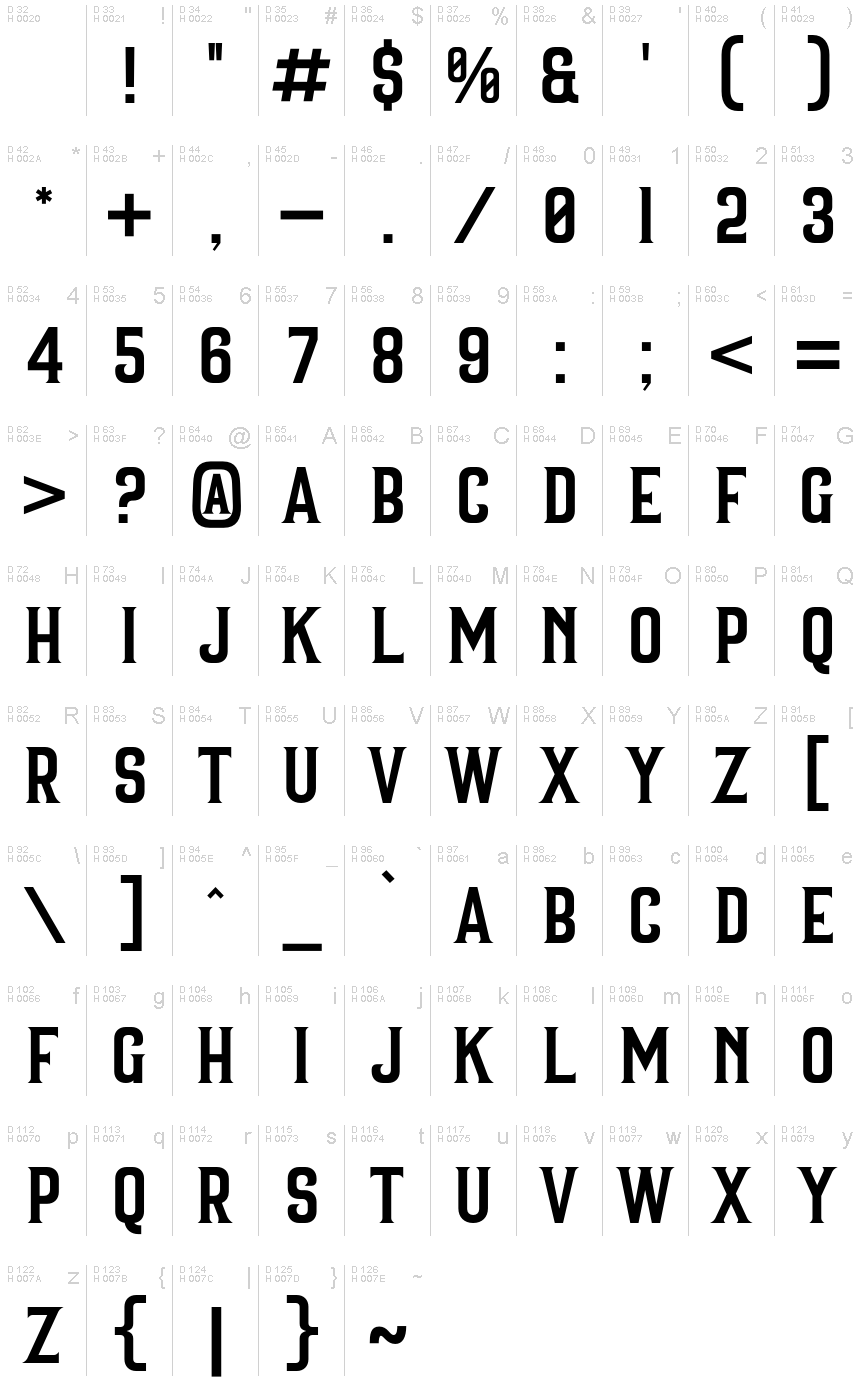
Intterno, crafted by Storytype Studio, is a gothic font that commands attention with its extra-condensed width and striking aesthetics. Its sharp serifs and pronounced verticality evoke a sense of historical depth while maintaining contemporary crispness. The Intterno typeface offers a bold statement for branding, editorial design, and poster creation.
Its unique characteristics make it exceptionally versatile for designers looking to infuse their projects with a blend of tradition and modernity. The narrow profile of Intterno not only conserves space but also creates a dramatic impact when used in large sizes or as an accent in minimalist layouts. Whether employed for its aesthetic appeal or functional qualities, Intterno stands out as an adaptable gothic font suitable for varied creative endeavors.